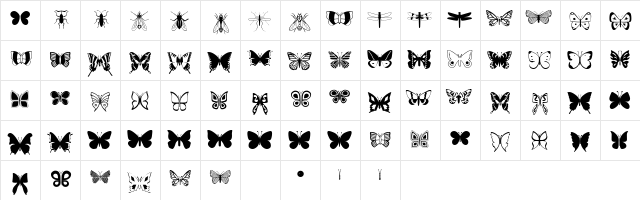
XCompuTerBuggz Regular
Design Context for XCompuTerBuggz Typeface
XCompuTerBuggz is a composed and adaptable typeface that performs quietly and consistently across a wide range of design contexts.